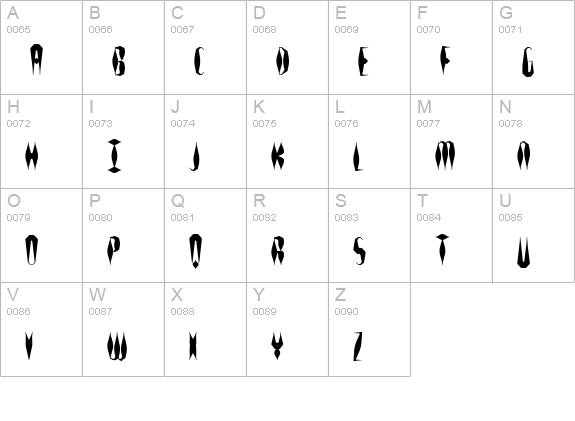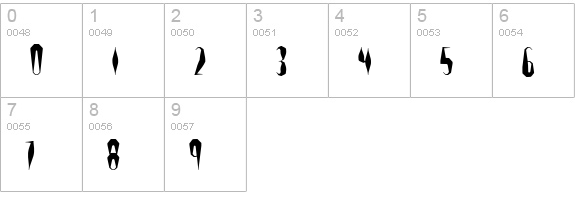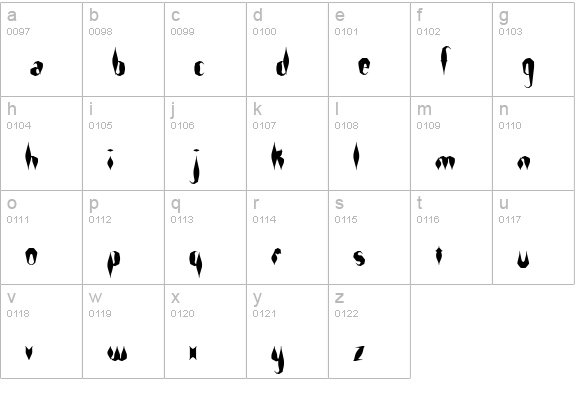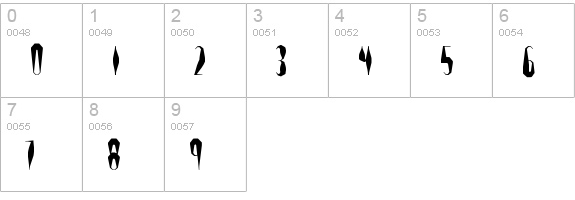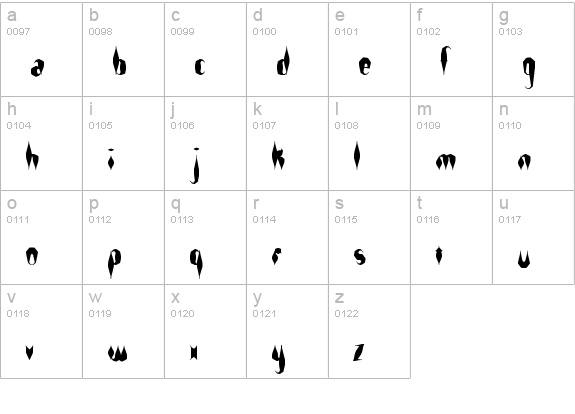
Quill Experimental S -BRK- Font Details
Quill Experimental S -BRK- is a captivating and daring font that pushes the boundaries of typographic design. With its unique and innovative letterforms, this font is a true testament to the creativity and experimentation of its designer. The Quill Experimental S -BRK- font features a distinctive combination of sharp edges and fluid curves, creating a visually striking and dynamic appearance. Each letter is meticulously crafted to evoke a sense of energy and movement, making it perfect for projects that require a bold and avant-garde aesthetic. What sets Quill Experimental S -BRK- apart is not only its exceptional design, but also its availability as a free download. FontsMarket.com proudly offers this font free of charge, allowing designers, artists, and typographic enthusiasts to freely explore its possibilities and unleash their creativity. With just a few clicks, anyone can experience the excitement and versatility that Quill Experimental S -BRK- brings to the table. Whether you're working on a graphic design project, creating eye-catching headlines, or simply looking to add a touch of edginess to your artwork, Quill Experimental S -BRK- is the perfect choice. Its bold and captivating presence will make a lasting impression and elevate any design to new heights. Download Quill Experimental S -BRK- for free at FontsMarket.com and embark on a typographic journey that defies conventions and sparks inspiration. Explore the endless possibilities that this font offers, and let your imagination run wild. With Quill Experimental S -BRK-, you have the power to make a statement and leave a lasting impression.